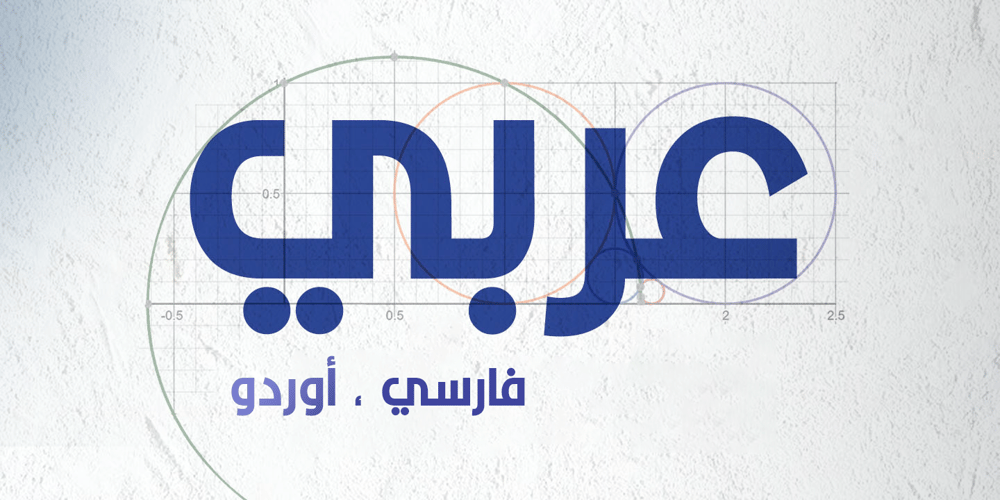
Graphology Arabic Font Family was designed by Hani Hasan and published by Hanifonts. Graphology Arabic contains 12 styles and family package options. Graphology is an Arabic typeface and the main focus is on blending traditional and modern rules in the formulation and design of the typeface. Designed with powerful OpenType features in mind.